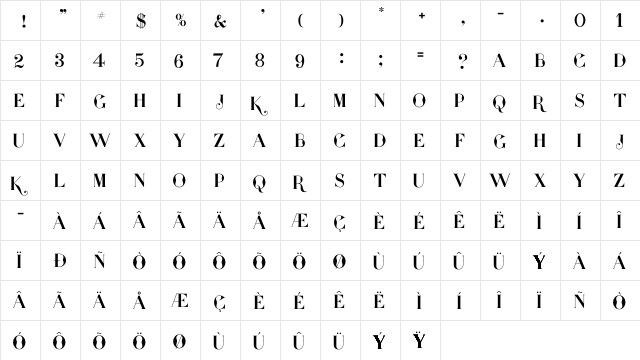
Presidente serif Regular
| Designer | Lettersiro 2018 |
Design Context for Presidente serif Typeface
Presidente serif brings classic typographic sensibility to the table — its serifs and measured letterforms reflect centuries of print heritage.
Pro Tip: Set Presidente serif with slightly loose tracking in headlines to let each letterform's detail read clearly at display sizes.